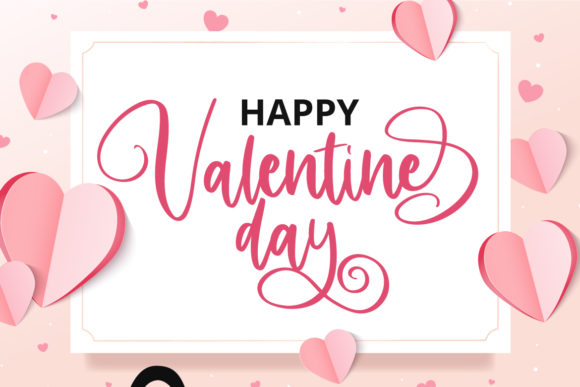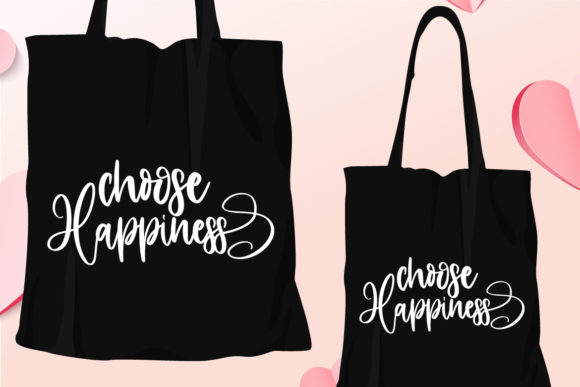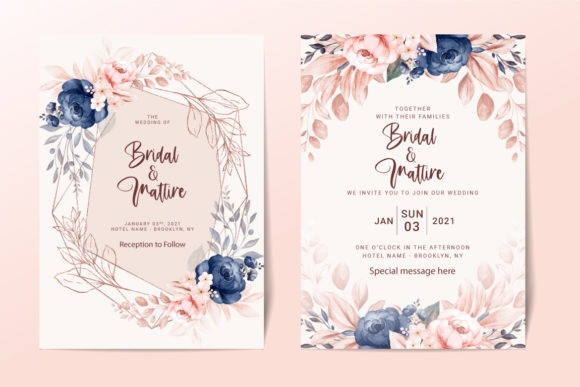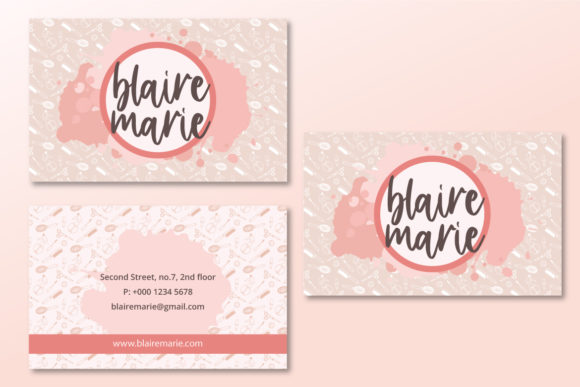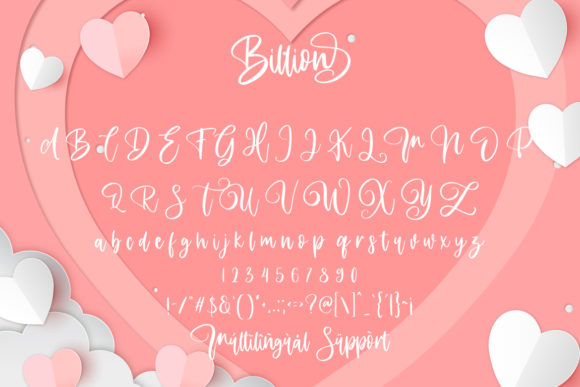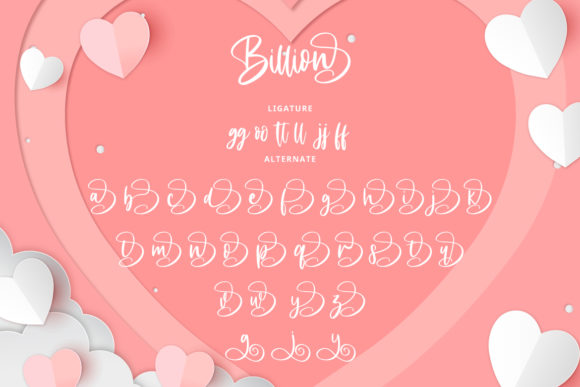
Unleashing Your Creativity with Billion Font
Have you ever been in the middle of a design project, staring at a blank canvas, waiting for the perfect font to bring your vision to life? That’s exactly where the Billion Font comes in – a modern handwritten font that’s been carefully crafted to make your designs truly special.
With its casual charm and down-to-earth feel, the Billion Font is the perfect addition to any project. Whether you’re working on a wedding invitation, a cutting project, or a Cricut design, this font is sure to make your creations stand out. Its varying baseline, smooth lines, and gorgeous glyphs make it incredibly versatile, and its stunning alternates will give your designs an extra touch of personality.
As a designer, you know that the right font can make all the difference. That’s why the Billion Font is a valuable addition to any creative toolbox. Its PUA encoding and extensive character set make it easy to use, and its natural, handwritten feel will add a touch of warmth to any project.
Billion Font Review
When I first laid eyes on Billion Font, I was immediately struck by its unique and eclectic design. ✨ The font’s blend of modern and vintage elements is undeniably captivating, making it a great choice for designers looking to add some personality to their projects. ✨
Here are some of the things that I think work well in Billion Font:
- Its versatility: Billion Font can be used for a wide range of projects, from editorial design to branding and beyond.
- Its unique character set: The font’s eclectic mix of modern and vintage elements makes it a great choice for designers who want to add some visual interest to their projects.
- Its high-quality design: Billion Font is a well-designed font that is sure to impress.
- Its lack of consistency: While Billion Font is certainly unique, its inconsistent design elements can make it difficult to use in certain contexts.
- Its limited language support: Unfortunately, Billion Font does not support as many languages as some other fonts on the market.
Overall, I think Billion Font is a great choice for designers who want to add some personality to their projects. While it may have its limitations, its unique design and high-quality construction make it a great addition to any designer’s toolkit.
Overall impression: Billion Font is a fun and quirky font that is sure to add some visual interest to any project. While it may not be the best choice for every project, it is definitely worth considering for designers who want to add some personality to their work.